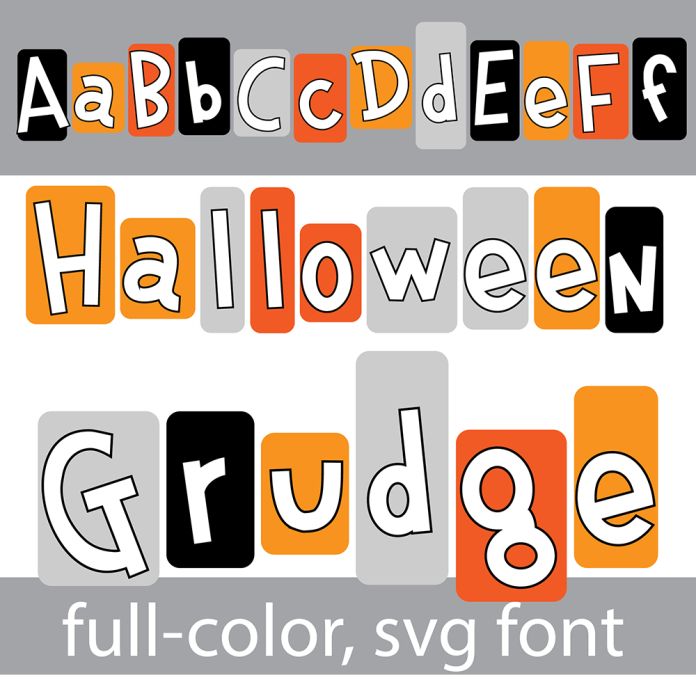
This full-color font features a whimsical and fun font backed by squares of Halloween colors. There is an alt version you can access through your system's character map that contains additional colors of all the letters. This font works best for titles, displays, posters and more. Please note color fonts will show as black in non compatible programs. This font type is compatible with Silhouette Studio.